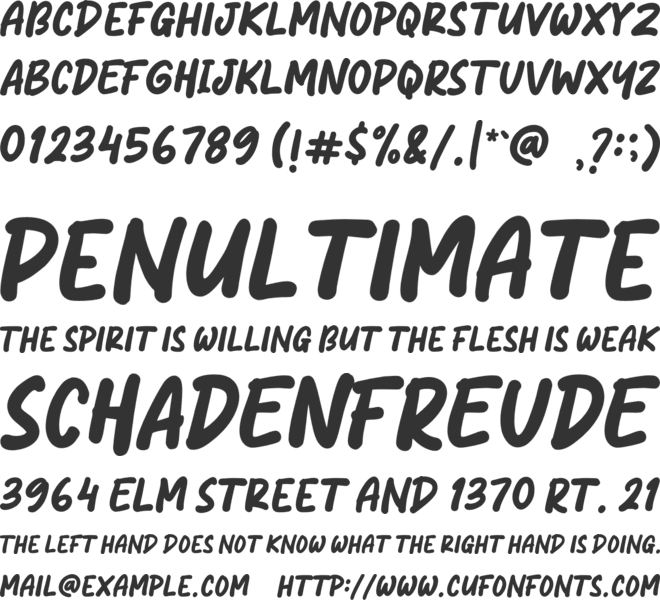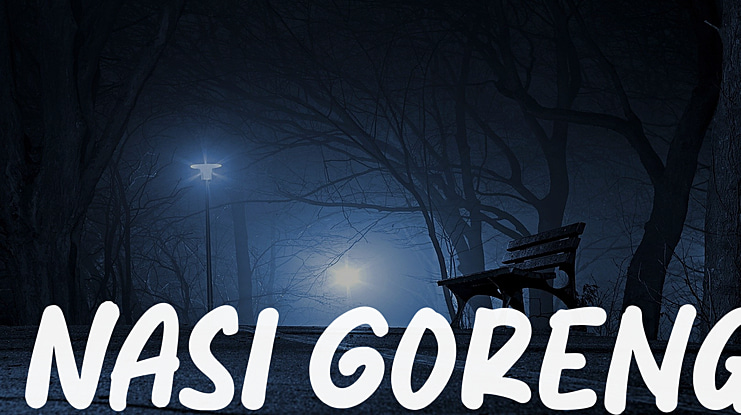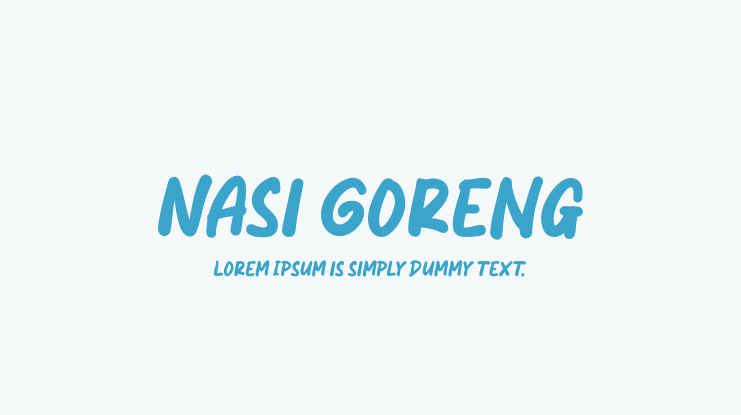
Nasi Goreng Font
Proudly presenting Nasi Goreng.
It is unique marker font.
BLASTER was designed to make logotype and lettering for your brands.
And it's would perfect for t-shirt/ apparel, promotional materials, sports, music festival, quotes, special events or anything .